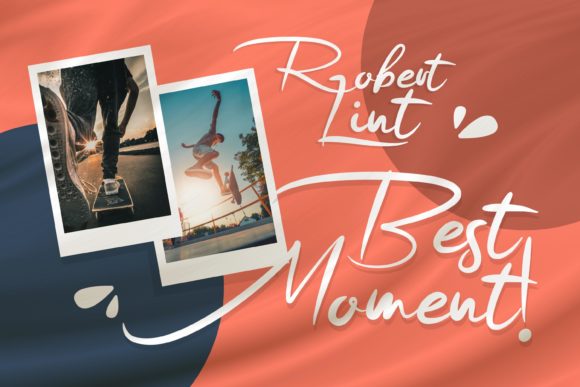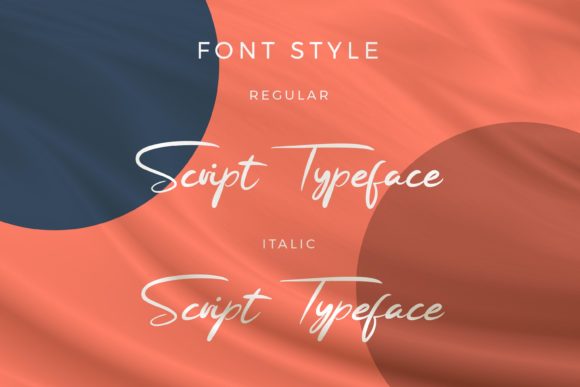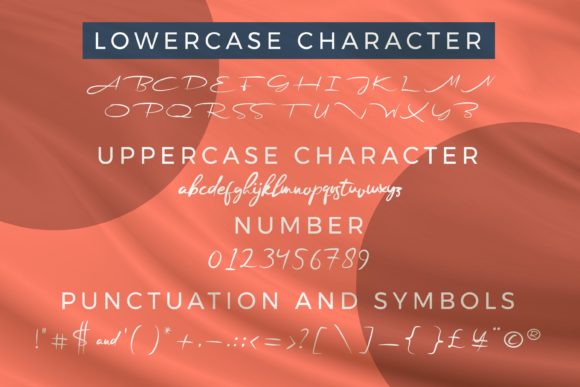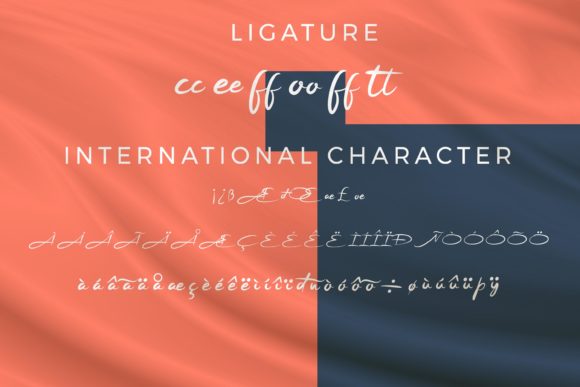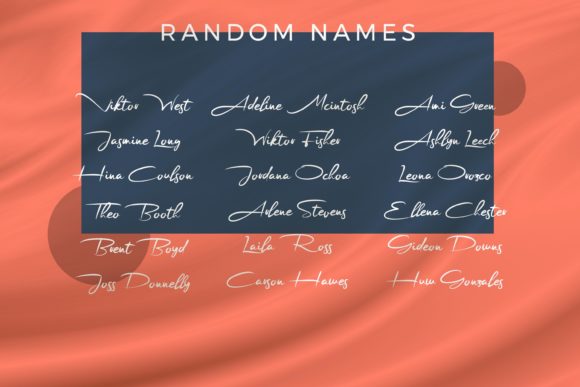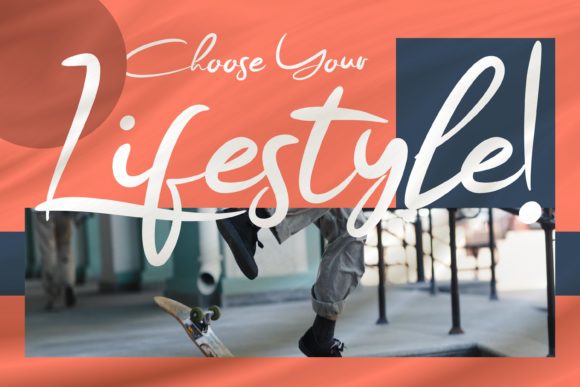
Introduction to Kyroon Font
As designers, we’ve all had those moments when a single font can elevate an entire project. For me, it was the day I discovered the Kyroon Font. I was working on a branding project and needed a delicate, yet elegant handwritten font to convey the perfect balance of sophistication and whimsy. The Kyroon Font was the perfect find, and I knew I had to dive deeper into its world.
What I found was a font that not only stole my heart but also proved to be an invaluable resource for designers. With its well-balanced letters and incredibly versatile style, the Kyroon Font is a high-quality design resource that can be used for a wide range of creative projects, from logo designs to social media graphics.
Key Features of Kyroon Font
- Designed with precision, the Kyroon Font features a crisp and clean aesthetic, suitable for a variety of design applications.
- Size: The font family includes multiple weights and styles, providing flexibility for designers to create unique and engaging typography.
- Perfect for designers seeking a versatile and high-quality font for their creative project, making it a valuable addition to any design resource collection.
Honest Review: Kyroon Font
As a designer, I’m always on the lookout for high-quality design resources that can elevate my creative projects. Recently, I stumbled upon the Kyroon Font, and I’m excited to share my honest review.
- ✨ The Kyroon Font offers a unique and elegant design that can add a touch of sophistication to any project.
- ✨ The font is highly customizable, making it perfect for designers who want to tailor their designs to their specific needs.
- ⚠️ The font can be a bit difficult to read on a transparent background, which can make it challenging to use in certain design scenarios.
- ⚠️ The font doesn’t come with a comprehensive guide or tutorial, which can make it difficult for designers who are new to the font to get started.
Overall, I’m really impressed with the Kyroon Font, and I think it’s a great addition to any designer’s toolkit. While it may have a few limitations, the benefits far outweigh the drawbacks. I would definitely recommend it to designers who are looking for a high-quality, free font that can help them take their creative projects to the next level.
Kyroon Font
The Kyroon Font is a versatile, high-quality design resource ideal for various creative projects. Its unique features and transparent background make it a popular choice among designers.
Tips for Getting the Most Out of Kyroon Font
To maximize the Kyroon Font’s potential, experiment with different font sizes, colors, and styles. Combine it with other design elements to create visually striking compositions.
The Kyroon Font is commonly used in branding materials, social media graphics, and marketing collateral. Its versatility makes it suitable for a wide range of creative projects.
Alternatives to Kyroon Font
Great Vibes Font is a high-quality, elegant script font ideal for creative projects that require a sophisticated and stylish look. It’s perfect for designing invitations, posters, and branding materials. This font is available for free download and features a transparent background, making it easy to use on any design resource.
When compared to Kyroon Font, Great Vibes Font has a more refined and cursive feel, making it suitable for projects that require a touch of elegance. However, it lacks the modern and edgy feel that Kyroon Font provides.
Pacifico Font is a beautiful, handwritten font that’s perfect for designing creative projects that require a relaxed and casual vibe. It’s ideal for use on branding materials, social media graphics, and website headers. This font is available for free download and features a transparent background, making it easy to use on any design resource.
When compared to Kyroon Font, Pacifico Font has a more laid-back and casual feel, making it suitable for projects that require a relaxed tone. However, it lacks the modern and sleek feel that Kyroon Font provides.
Q: What are the technical requirements for using the Kyroon Font?
The Kyroon Font is a high-quality font that supports a wide range of languages and characters. It’s designed to work on both Windows and Mac operating systems, and it’s compatible with most design software, including Adobe Creative Cloud applications. To use the font, you’ll need to have a compatible operating system and design software installed on your computer. Additionally, you may need to have a transparent background or a specific color profile set up in your design software to achieve the desired results.